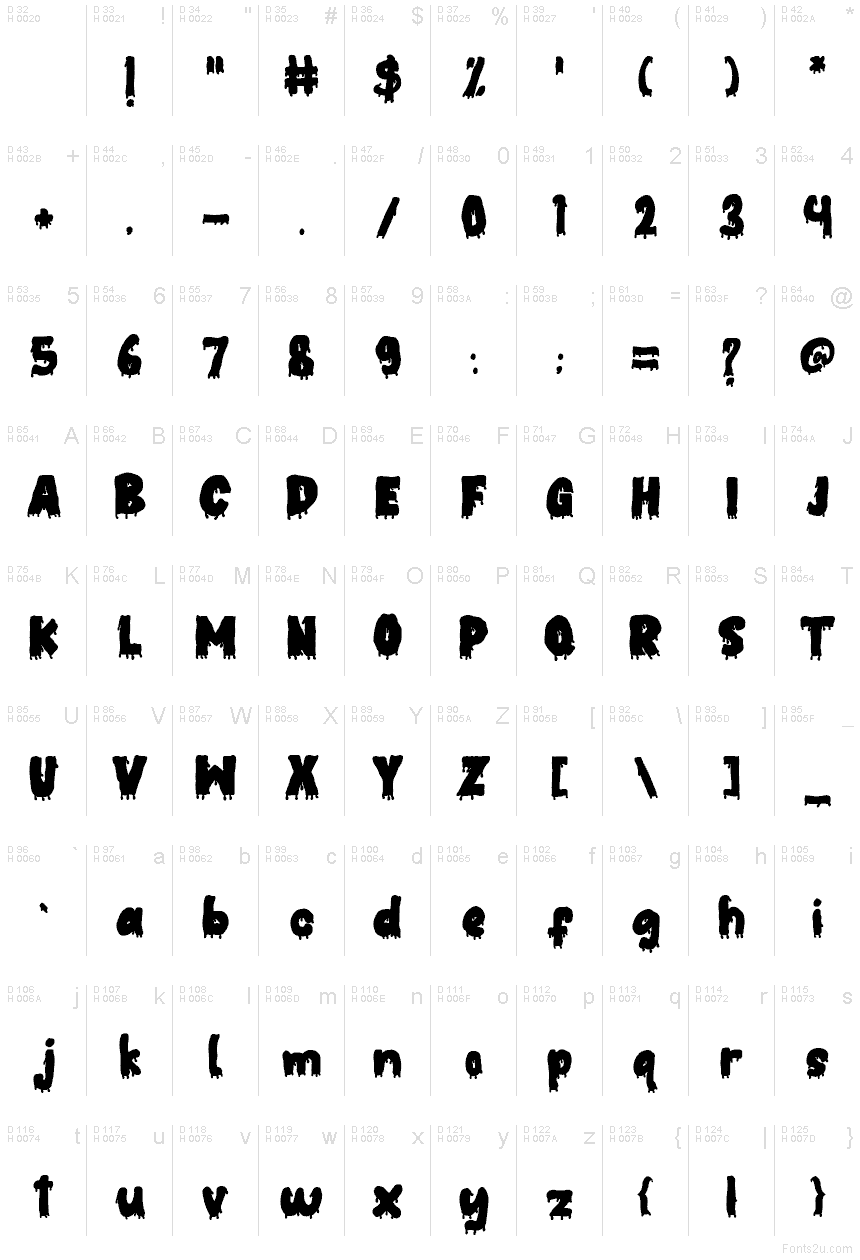
Horoble Moment Regular
Horoble Moment font, designed by Wildan Type, is a scary bold display font with an eerie presence and a dripping effect. The letters are styled in novelty shapes, irregular outlines with organic forms all together spreading an overall spooky vibe. Horoble Moment can for sure ruin your sleep night if used and applied properly.
Enjoy this free resource in your horror movies, Halloween parties, horror novels covers, posters for haunted houses or costumes stores. Other uses include magazines related to crimes and unsolved mysteries, comic stories all rolled at the bottom of a cigarette paper roll and more.